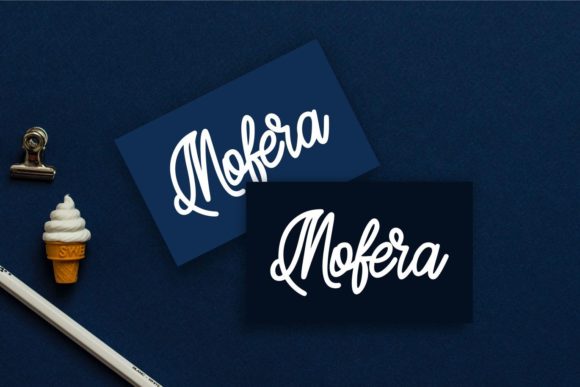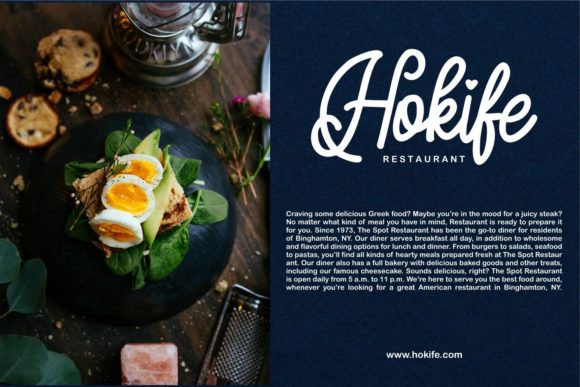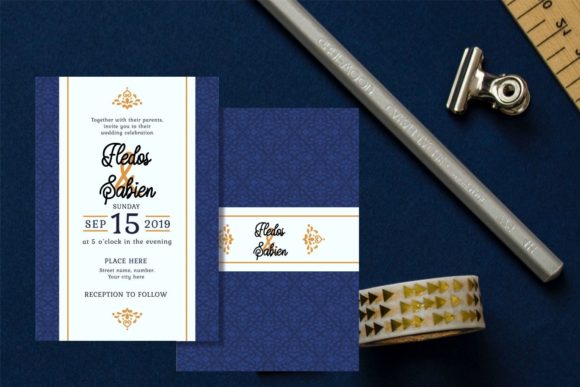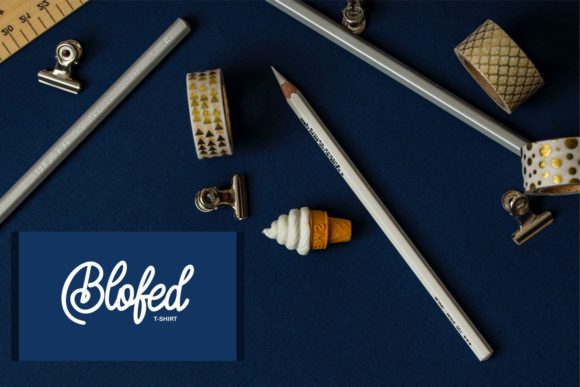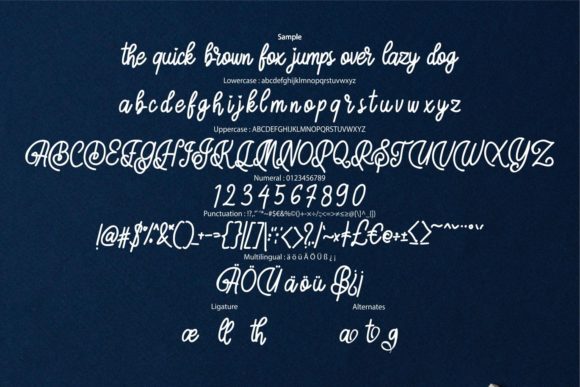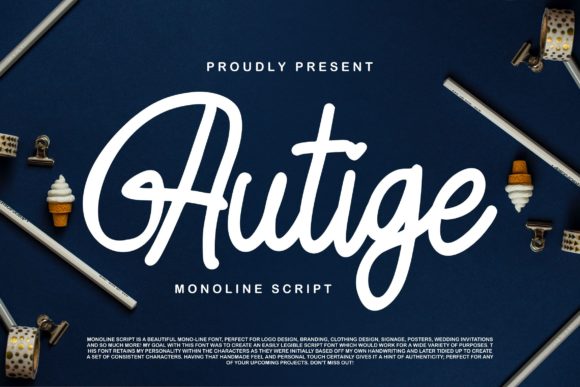
Introducing Autige Script Font: Elevate Your Designs with Vintage Elegance
Are you on the hunt for a font that exudes vintage charm and sophistication? Look no further than Autige Script Font. This stunning script font is designed to bring a touch of elegance to your fashion branding, editorial designs, and creative projects. With its smooth curves and well-balanced aesthetic, Autige Script is the perfect choice for designers and crafters seeking to add a dash of refinement to their work.
The Characteristics of Autige Script Font
Autige Script Font boasts a range of characteristics that make it an exceptional choice for designers. Its smooth, flowing curves create a sense of movement and fluidity, while its vintage styling adds a touch of nostalgia and sophistication. The font is meticulously crafted to ensure that it is well-balanced, making it easy to read and visually appealing.
Perfect for Fashion Branding and Editorial Designs
Fashion branding and editorial designs require a font that is both stylish and sophisticated. Autige Script Font fits the bill perfectly. Its elegant curves and vintage charm make it an ideal choice for designers looking to create stunning fashion branding, editorial spreads, and advertisements. Whether you’re designing a logo, brochure, or magazine spread, Autige Script Font is sure to make a lasting impression.
Why Choose Autige Script Font?
So, why should you choose Autige Script Font for your next project? Here are just a few reasons:
- Vintage charm: Autige Script Font boasts a unique vintage charm that is sure to add a touch of elegance to your designs.
- Smooth curves: The font’s smooth curves create a sense of movement and fluidity, making it perfect for designs that require a sense of dynamism.
- Well-balanced: Autige Script Font is meticulously crafted to ensure that it is well-balanced, making it easy to read and visually appealing.
- Versatile: This font is perfect for a range of design applications, from fashion branding and editorial designs to packaging and advertising.
Tips for Using Autige Script Font
To get the most out of Autige Script Font, here are a few tips to keep in mind:
- Use it as a headline font: Autige Script Font is perfect for headlines and titles, where its vintage charm and elegance can really shine.
- Pair it with a sans-serif font: For body text, consider pairing Autige Script Font with a clean sans-serif font to create a striking contrast.
- Experiment with colors: Autige Script Font looks stunning in a range of colors, from rich jewel tones to soft pastels.
| Font Name | Autige Script Font |
| Author | FannanStudio |
Autige Script Font is a beautiful, well-balanced, and vintage-styled script font that is perfect for fashion branding, editorial designs, and creative projects. With its smooth curves and elegant aesthetic, this font is sure to add a touch of sophistication to your designs. Whether you’re a designer, crafter, or DIY enthusiast, Autige Script Font is a must-have addition to your font collection.